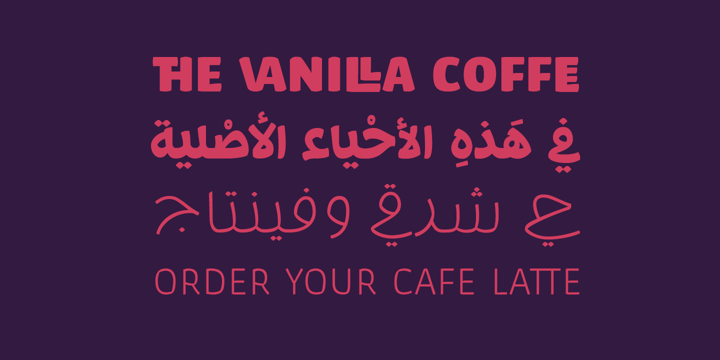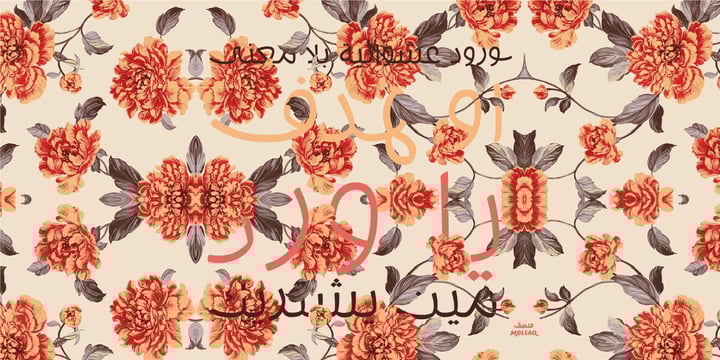
Molsaq Arabic
by Abjad
A multilingual type family that features a modern Arabic Naskh with very short descenders and ascenders, which matches with a full-caps Latin counterpart. Molsaq is perfect for setting applications that require tight leading, such as posters, hence the name, which means poster in Arabic. With 1050 glyphs, Molsaq Pro supports Arabic, Farsi, Urdu, and Kurdish, it also supports more than 60 languages that use the Latin script. Molsaq Pro comes with many Opentype features such as, stylistic alternates, ligatures, swashes, and small caps. Molsaq Latin includes all the Opentype features and the full languages support, except for the Arabic script. While Molsaq Arabic doesn't include Opentype features, and only support the Arabic script.